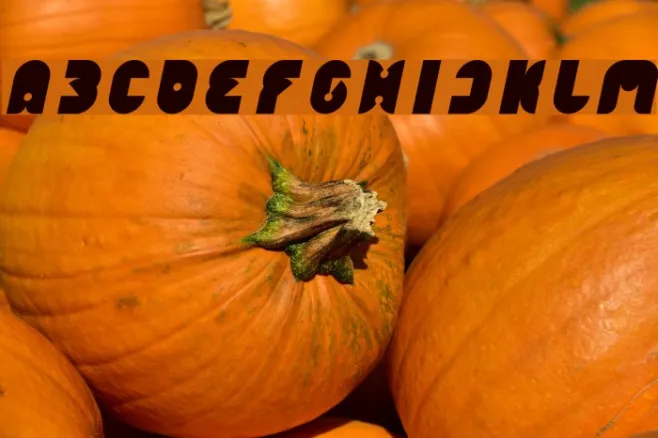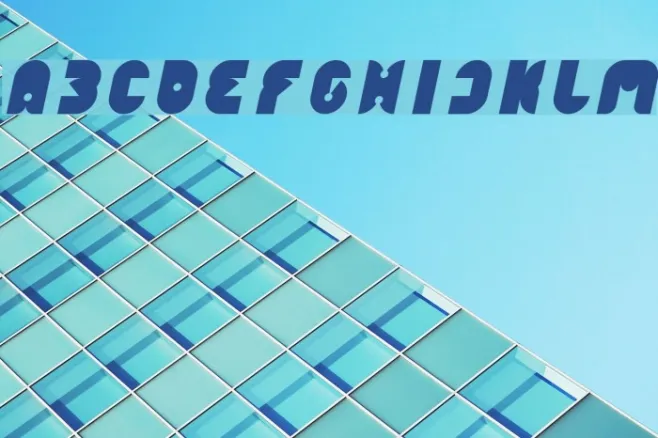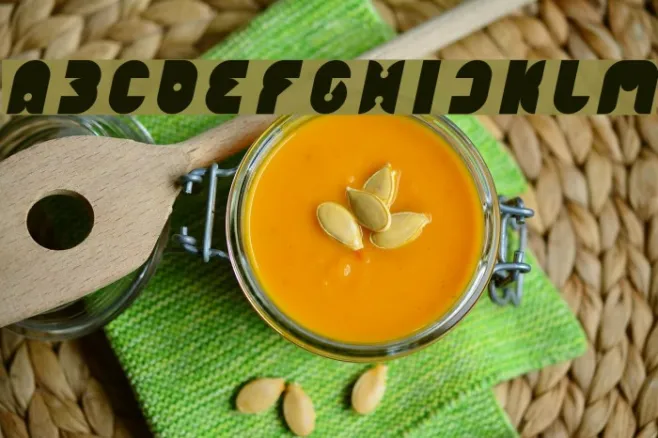
FUNNY SPORT Italic Font
FUNNY SPORT Italic Description
This playful and dynamic font features bold, rounded characters with a distinct italic slant, giving it a sense of motion and energy. The letters are thick and robust, with a smooth, continuous flow that enhances readability while maintaining a unique style. The font's design incorporates subtle curves and a slightly condensed form, making it suitable for eye-catching displays. Its whimsical nature is emphasized by the rounded edges and the consistent stroke width, which adds a friendly and approachable feel. The numbers and special characters follow the same design principles, ensuring a cohesive look across all elements.
Overall StylePlayful, Dynamic
Proposed ProjectsIdeal for sports branding, playful posters, children's books, and dynamic advertising campaigns.